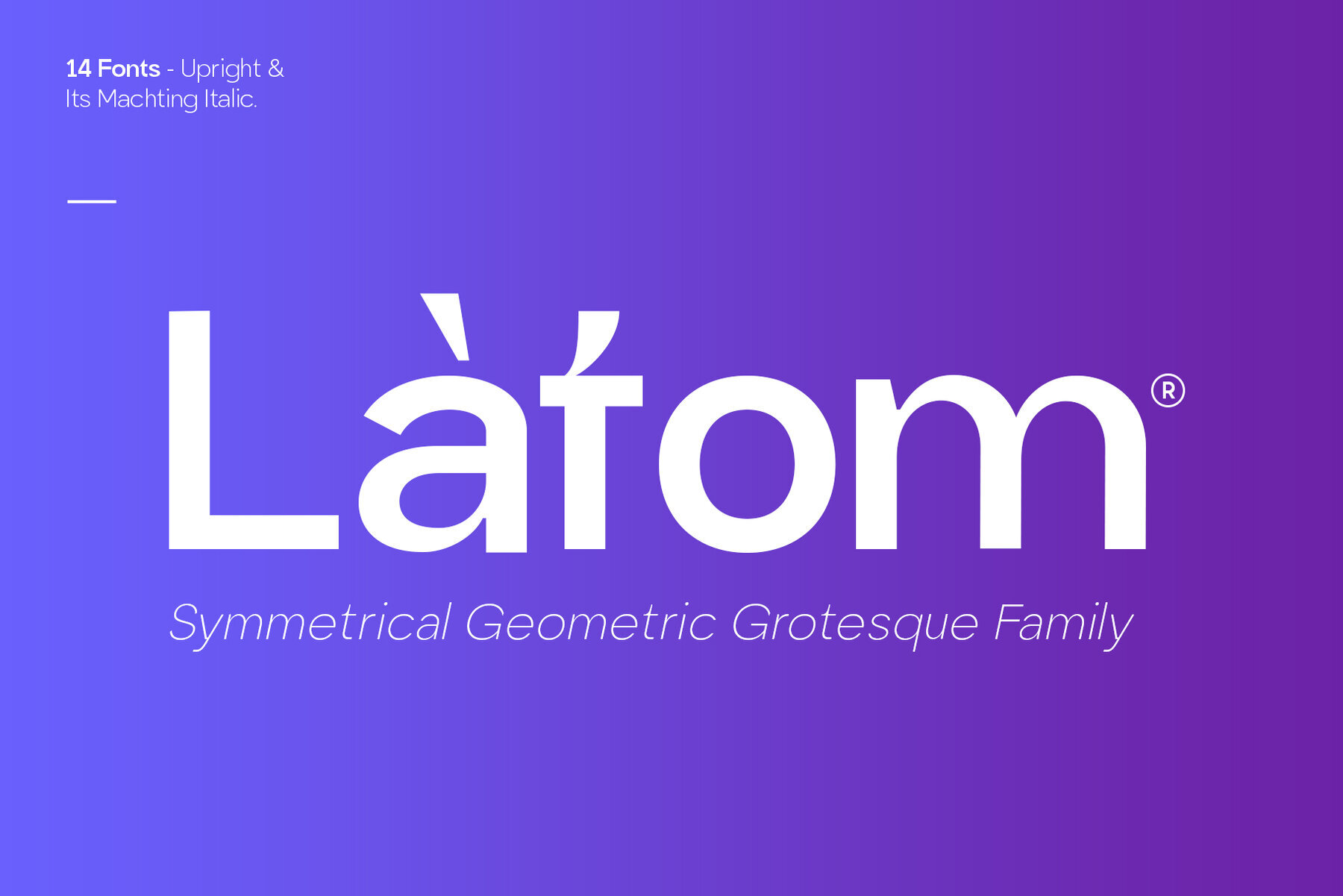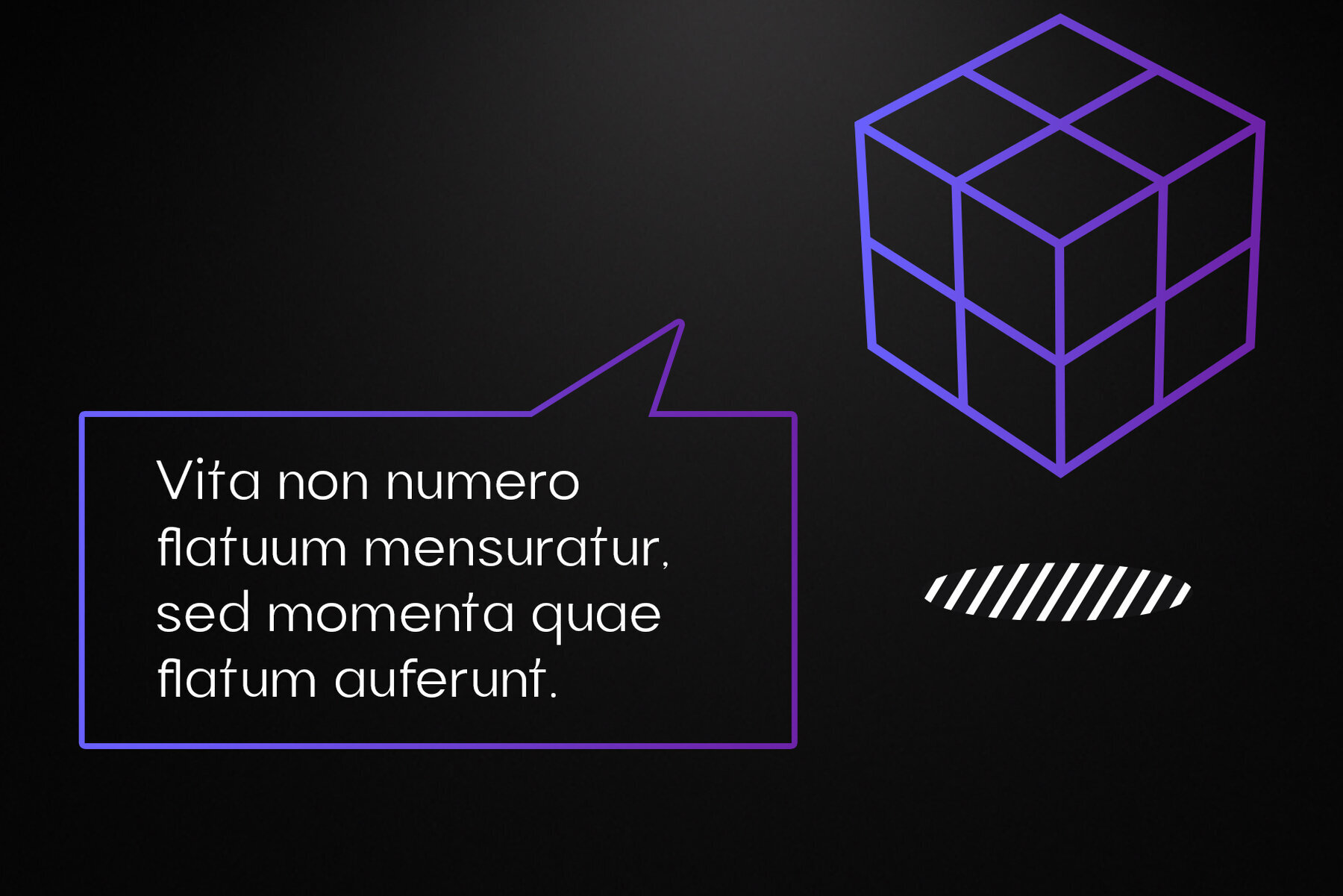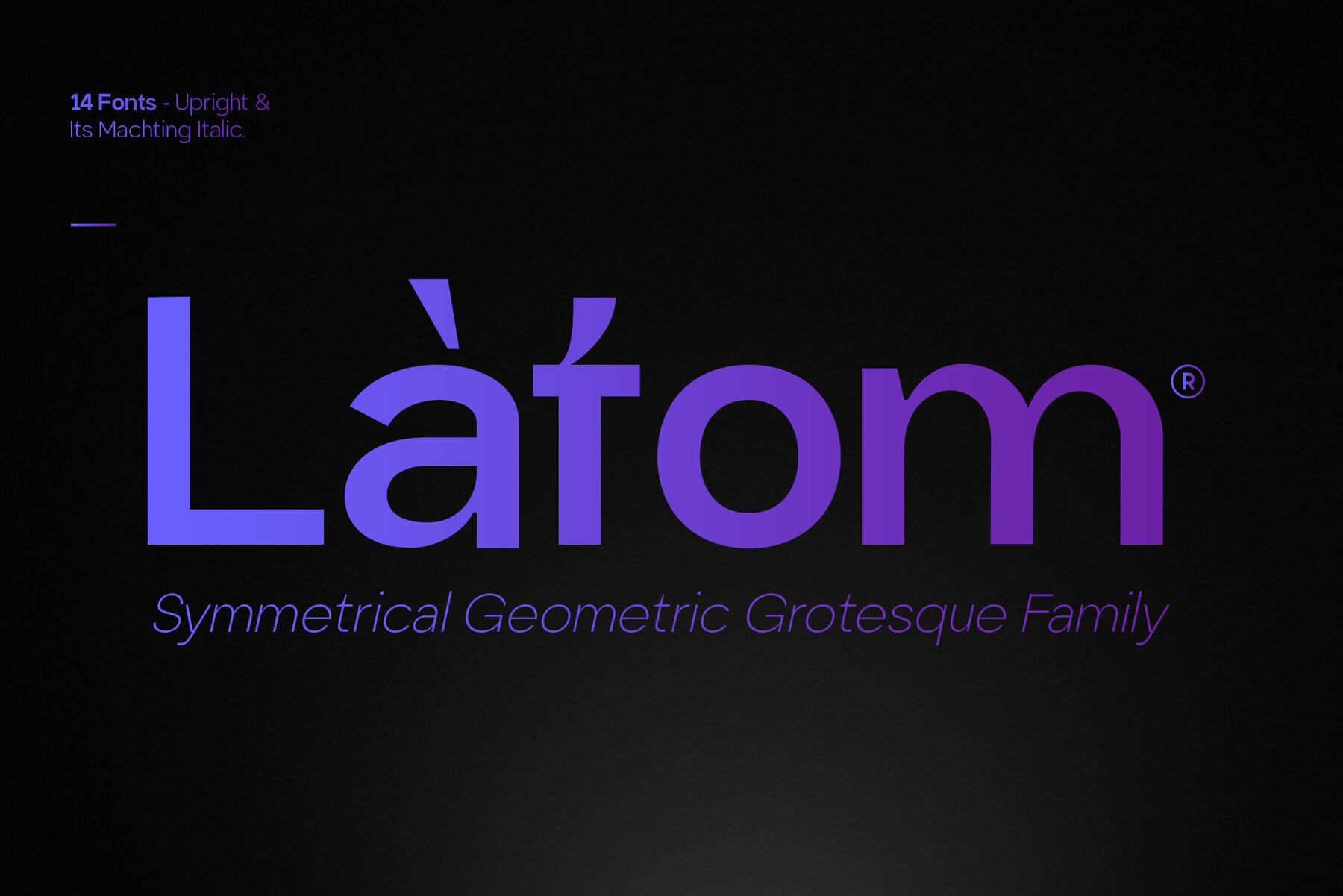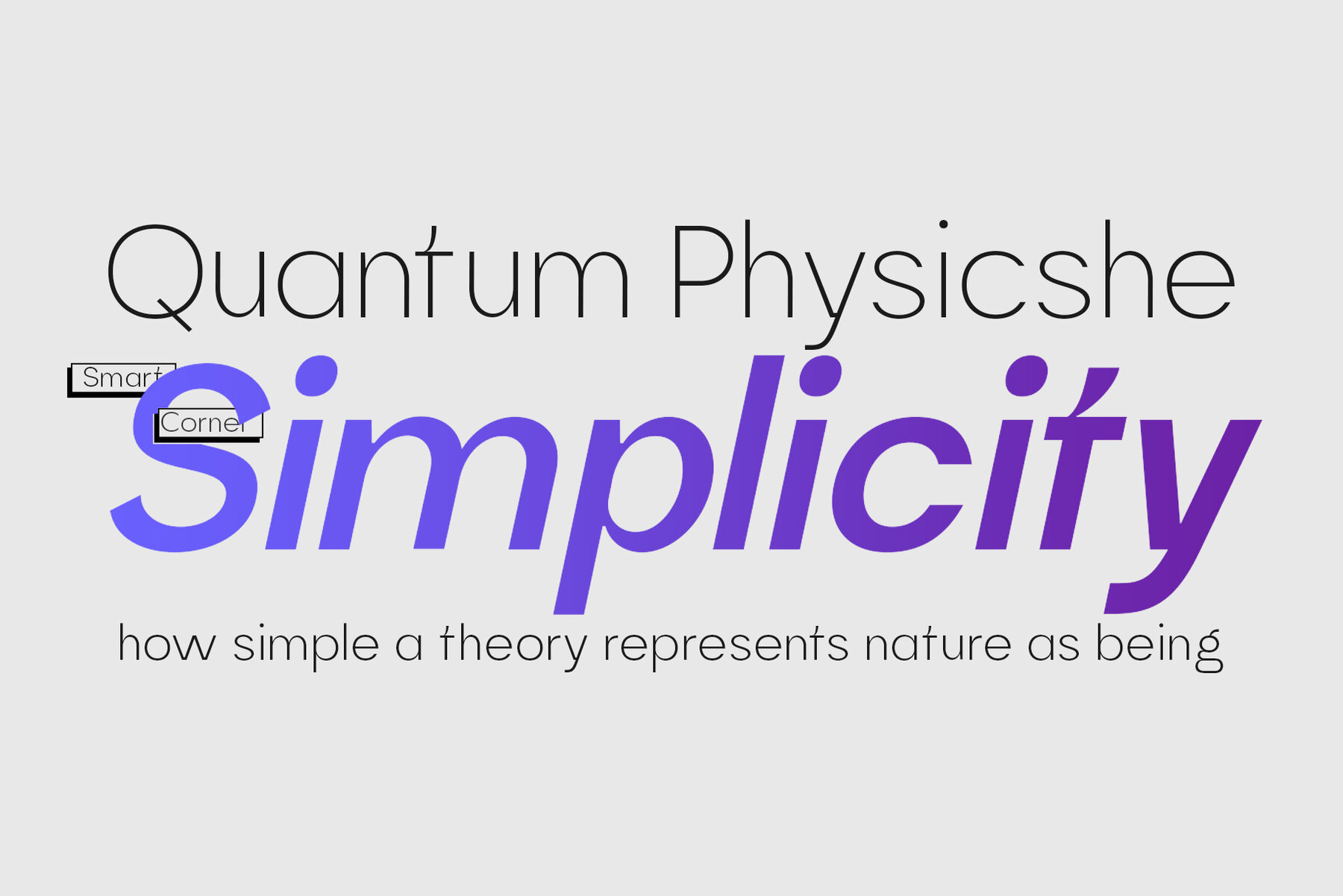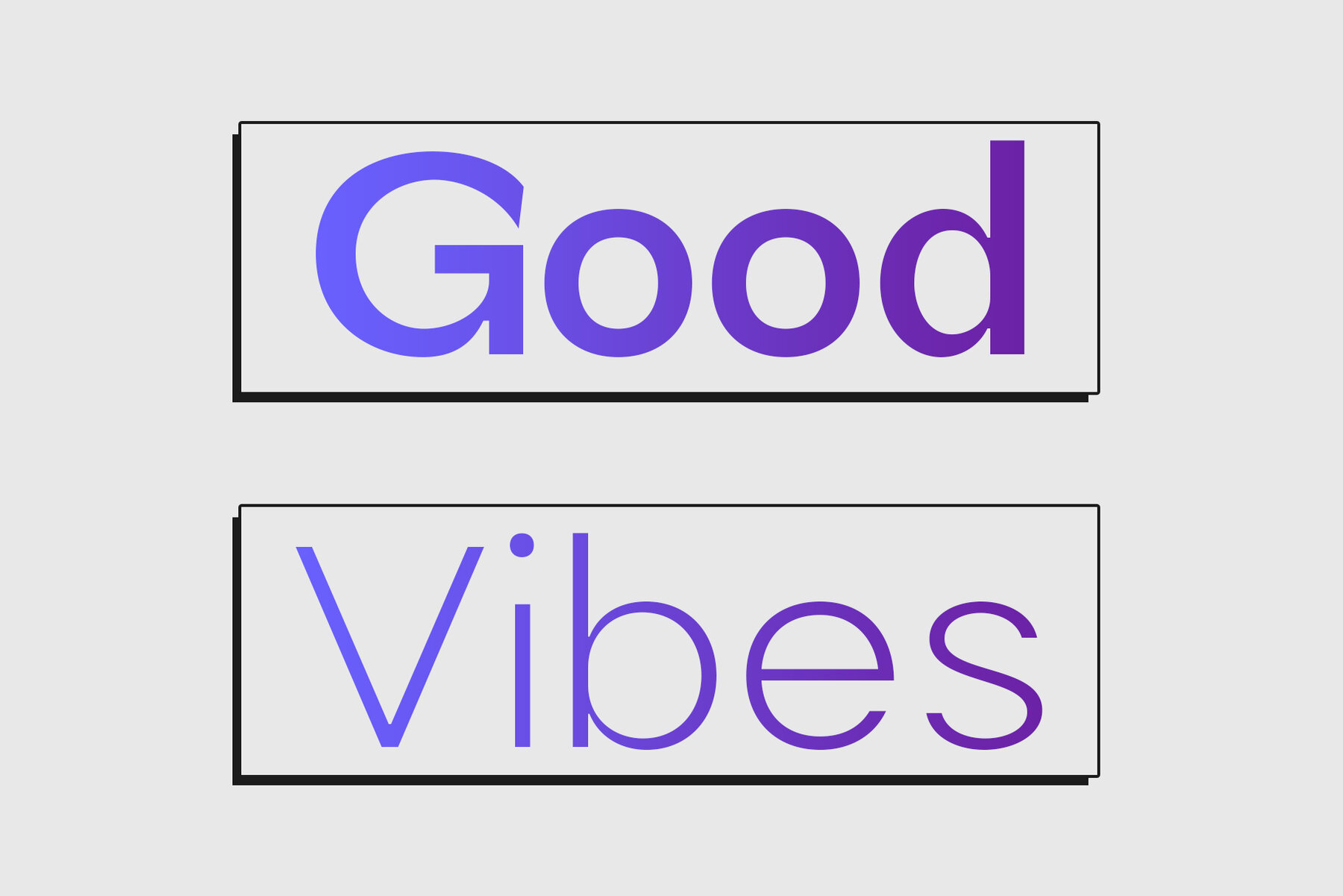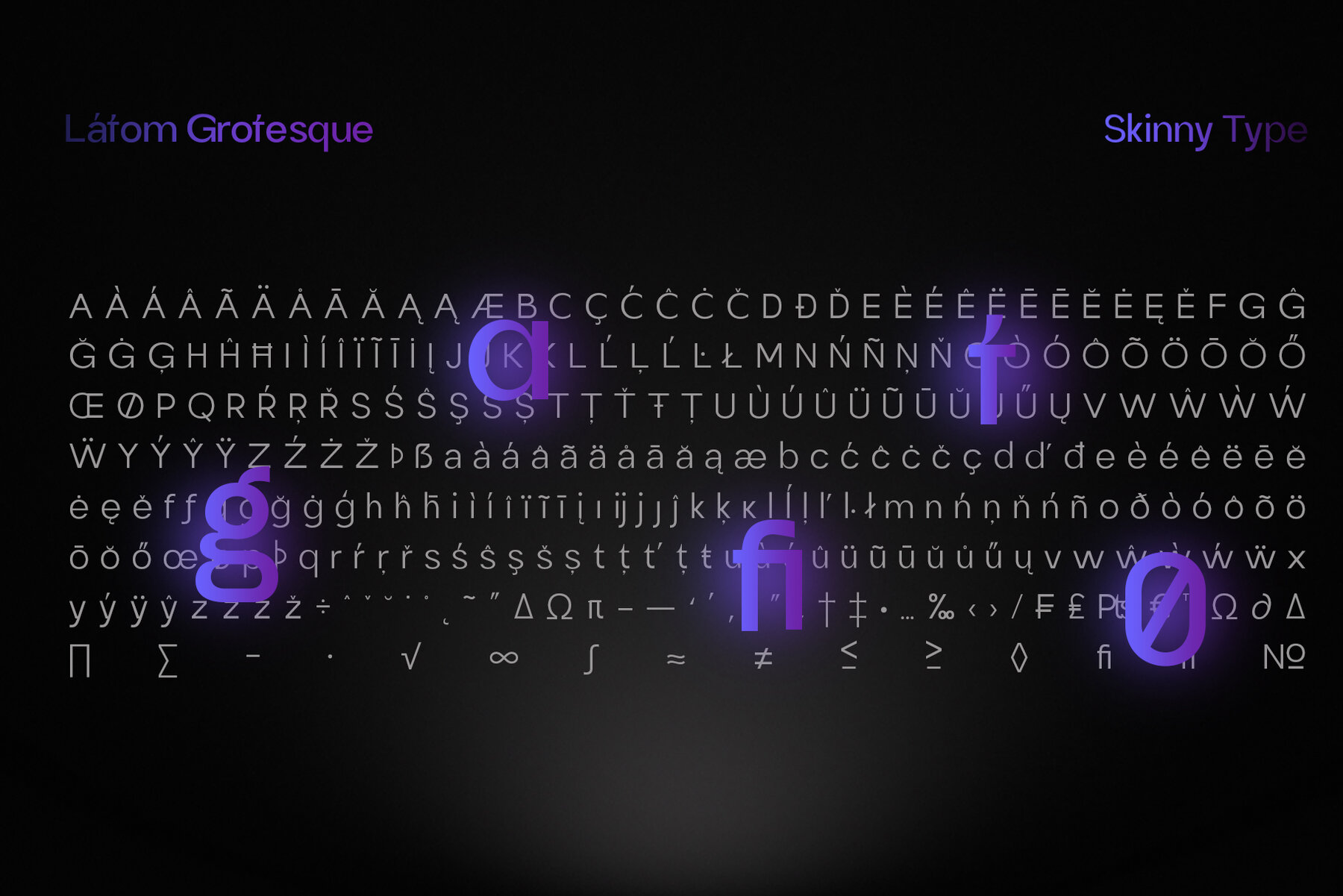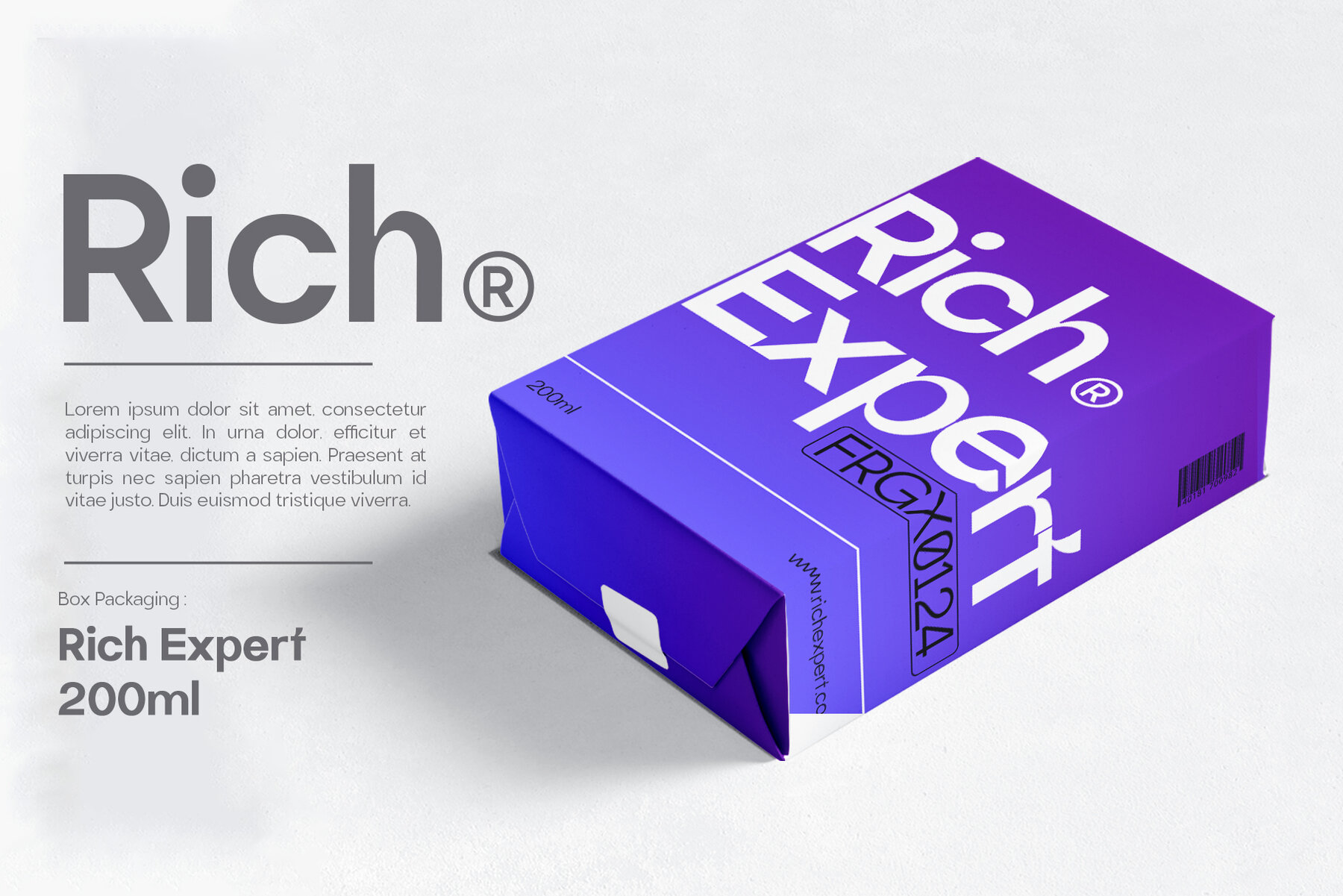
Latom Grotesque Font
Latom Grotesque is a distinctive sans serif font family featuring a simple geometric structure with added warmth. With seven weights and matching italics, this font family offers versatility for a wide range of design projects, including branding, magazines, posters, advertising, packaging, headlines, logos, web, and print.
Comprising 14 styles, Latom Grotesque covers 397 glyphs and supports Latin-based languages. It also includes valuable OpenType features such as ligatures, and variable font options that provide ultimate flexibility for designers seeking to achieve precise typography.